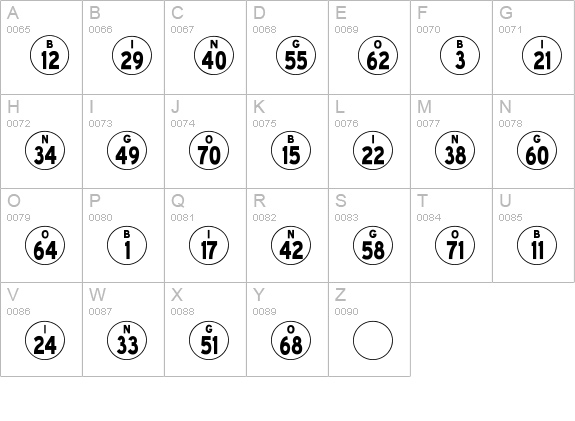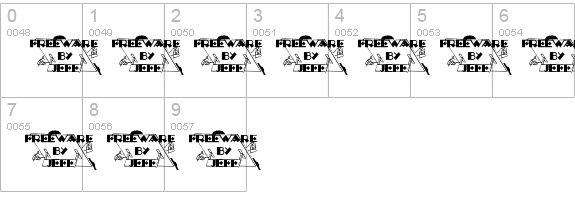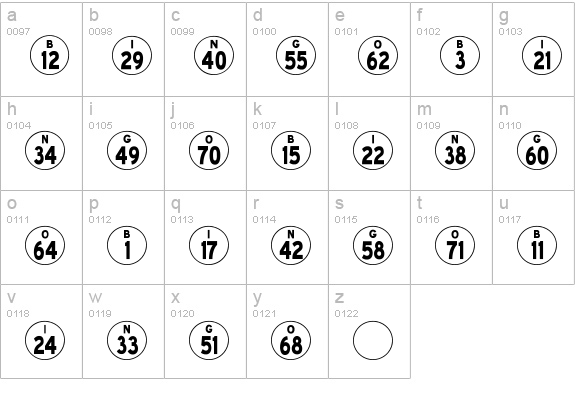
Bingo Player JL Font Details
Bingo Player JL font is a fun and quirky typeface that adds a playful touch to any design project. With its unique combination of rounded edges and bold lettering, this font is perfect for creating eye-catching headings and logos. The wide range of characters in Bingo Player JL font allows for creative flexibility, making it suitable for a variety of design purposes. Best of all, this font is available for free download at FontsMarket.com, making it easily accessible for designers looking to add a touch of whimsy to their creations. Whether you're working on a poster, website, or branding project, Bingo Player JL font is sure to bring a touch of fun and personality to your design.